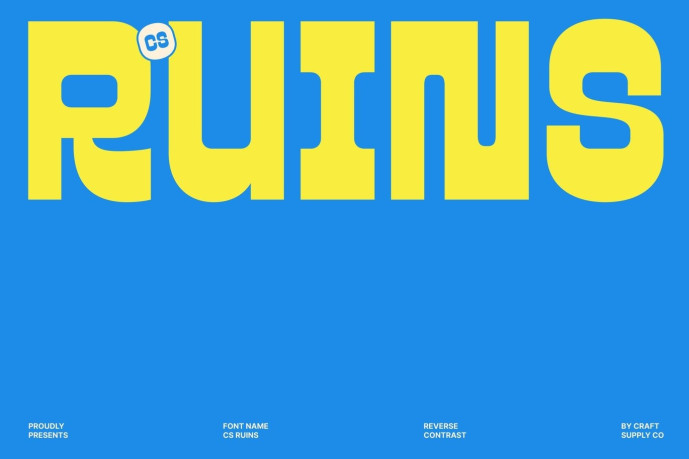
Ruins – Reverse Contrast Font
Designer: Craft Supply Co.
CS Ruins – Bold Reverse Contrast Display Sans Serif: Where Space Age Geometry Meets Modern Impact Wide Geometric Letterforms with Rounded Character This is a bold reverse contrast display sans serif featuring wide geometric letterforms, rounded corners, and clean modular construction. Its unconventional stroke contrast creates a bold visual rhythm that immediately commands attention, while the broad proportions provide a confident, stable presence. The rounded details soften the geometry, giving the font a balanced blend of strength and approachability.
Space Age Influence with Mid-Century Modern Appeal Inspired by the optimistic aesthetics of the Space Age and the clean functionality of mid-century modern design, this font combines retro-futuristic charm with contemporary precision. Its modular structure and geometric forms create a timeless visual identity that feels innovative, stylish, and unmistakably distinctive.
Strong Display Typography with Contemporary Precision By merging reverse contrast styling with wide geometric construction, creates typography that is bold, clean, and highly memorable. Its modular design ensures visual consistency, while the unique contrast and rounded corners introduce personality without sacrificing readability. This combination makes it an excellent choice for projects that demand both originality and modern sophistication.
Perfect for Logos, Posters, and Contemporary Visual Identities Perfect for logos, posters, packaging, editorial headlines, advertising campaigns, and contemporary visual identities. Its reverse contrast construction, Space Age inspiration, and geometric modular forms make it ideal for designs that communicate innovation, confidence, and timeless modern style.